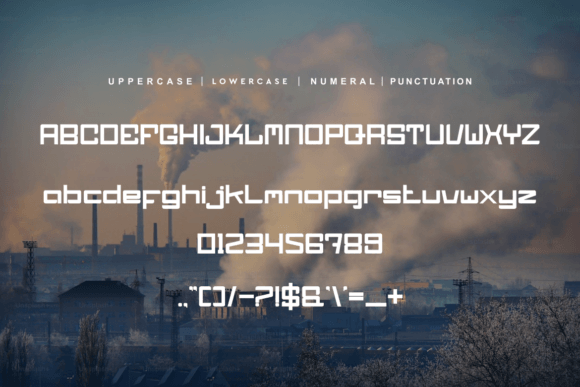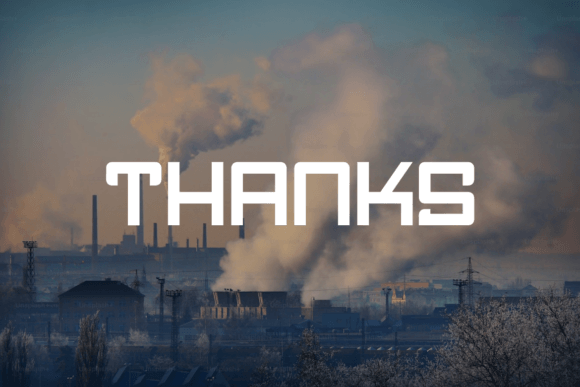
Introduction to Onbold Smoke Font
Introducing a unique, versatile font, primed to inject creativity into your design projects.
From grandiloquent movie titles and vintage poster designs to captivating album covers, distinctive logos, and eye-catching gig promotions – everything gets a design uplift with this typeface Prepare to make your labels stand out and your scenes speak volumes – dive into the world of innovation with this artistic font.
Key Features of Onbold Smoke Font
Why Choose Onbold Smoke Font?
Onbold Smoke Font offers exceptional quality and versatility, making it a valuable addition to your design toolkit. Whether you’re creating for personal projects or commercial use, Onbold Smoke Font delivers professional results.